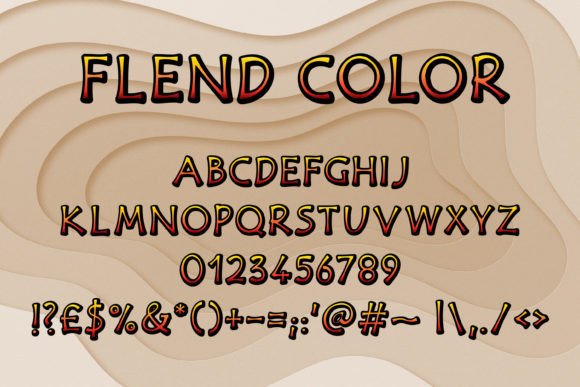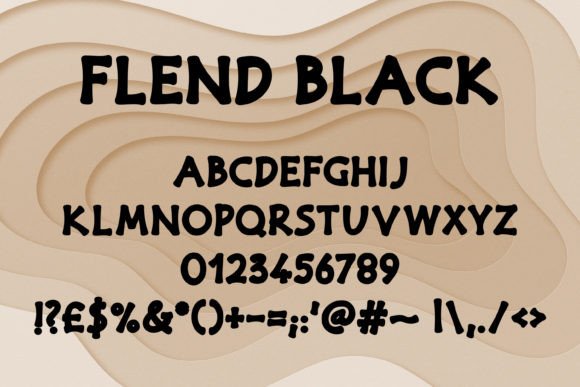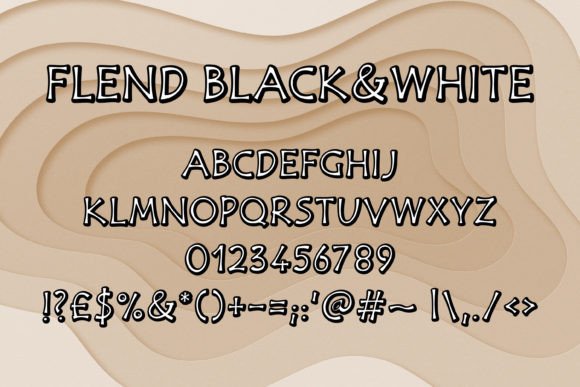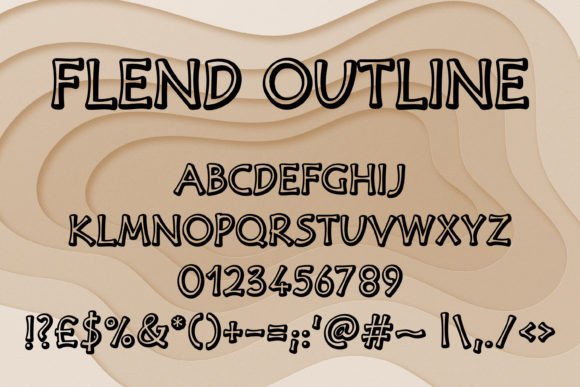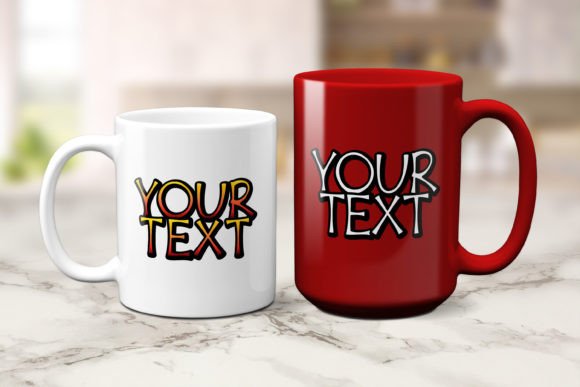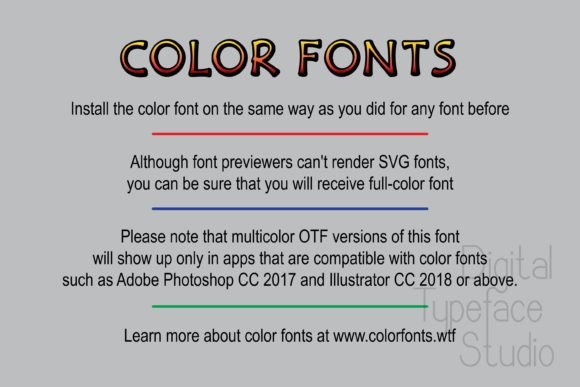
The Joy of Flend Font: Adding Whimsy to Your Designs
I’ll never forget the time I was working on a project for a children’s birthday party invitation. I had a clear vision of what I wanted to create – a fun, playful design that would make kids (and adults!) excited about the upcoming celebration. But, as I was browsing through my font library, I just couldn’t find the right one. That’s when I stumbled upon Flend Font, and it instantly brought my design to life! In this article, I’ll share with you why I’m obsessed with Flend Font, its features, and how to make the most of it in your designs.
First Impressions: A Cute and Quirky Display Font
Flend Font is a beautiful, modern display font that adds a joyful touch to any design. Its unique and quirky style makes it perfect for creative projects, such as party invitations, posters, social media graphics, and more. This font is sure to make your designs stand out from the crowd!
An Honest Review of Flend Font
What I Love About Flend Font ✨
- 💥 It’s a color font (Opentype-SVG), which means it offers a wide range of colors and styles to play with.
- 🎉 The font has a vast library of glyphs and stylistic alternates, giving you endless creative possibilities.
- 👍 It’s perfect for a variety of design projects, from digital graphics to print materials.
The Backstory of Flend Font
Flend Font was created by a talented font designer who wanted to bring a touch of whimsy and playfulness to the world of typography. Inspired by the beauty of hand-drawn letters and the creativity of digital art, Flend Font was born. Today, it’s a popular choice among designers and crafters who want to add a bit of fun and personality to their designs.